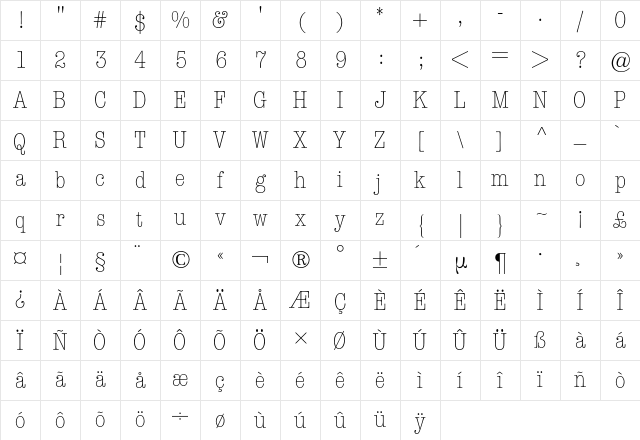
Complete AmericanTypewriterCondensedBQ Regular glyph index. Displaying only characters natively supported by AmericanTypewriterCondensedBQ Regular font.
AmericanTypewriterCondensedBQ uses fixed-width spacing throughout, giving it the structured, systematic character associated with coding environments and technical documentation.
Pro Tip: Use AmericanTypewriterCondensedBQ with slightly increased line-height for extended reading - fixed-width spacing can feel dense in longer passages without extra breathing room.